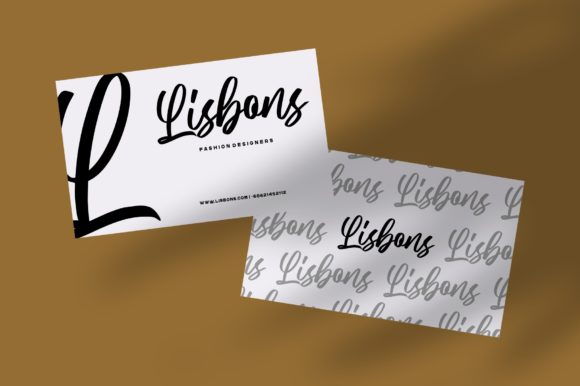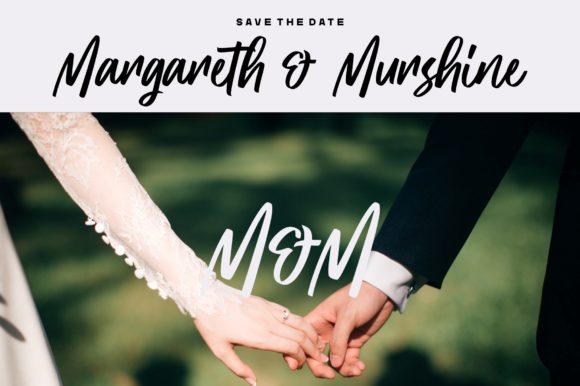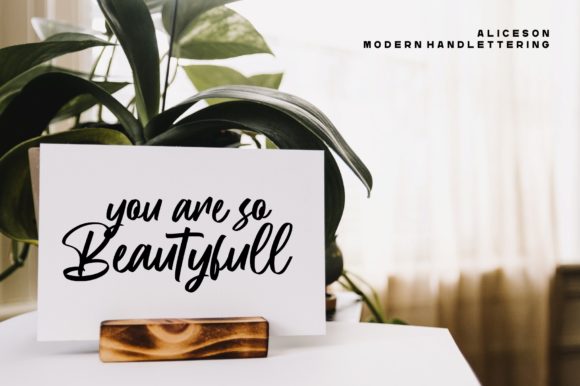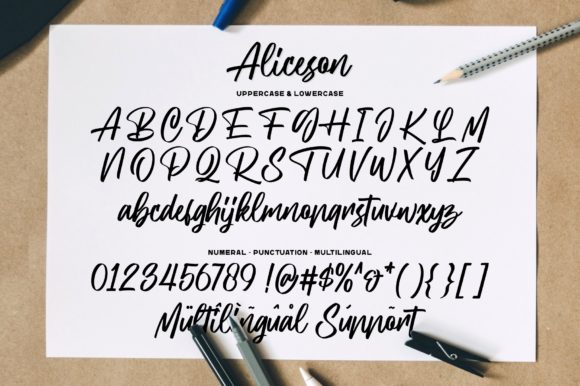
Aliceson Font: The Sweet and Versatile Handwritten Font for Your Creative Projects
Are you looking for a font that can add a touch of elegance and sweetness to your creative projects? Look no further than Aliceson Font, a beautiful cursive and handwritten font that is perfect for a wide range of applications. In this article, we’ll take a closer look at the Aliceson Font, its features, and how you can use it to create stunning wedding invitations, stationery art, social media posts, and more.
What is Aliceson Font?
Aliceson Font is a carefully crafted cursive and handwritten font that exudes a sense of sweetness and versatility. Its unique and elegant style makes it perfect for designers and crafters who want to add a personal touch to their projects. Whether you’re creating wedding invitations, stationery art, or social media posts, Aliceson Font is sure to impress.
Features of Aliceson Font
Aliceson Font comes with a range of features that make it an incredibly versatile font. Some of its key features include:
- Cursive and Handwritten Style: Aliceson Font has a beautiful cursive and handwritten style that adds a touch of elegance and sweetness to any project.
- Versatile: Aliceson Font is perfect for a wide range of applications, including wedding invitations, stationery art, social media posts, and more.
- Easily Readable: Despite its cursive style, Aliceson Font is easily readable, making it perfect for body text and other applications where readability is key.
Using Aliceson Font for Wedding Invitations
Wedding invitations are one of the most popular uses for Aliceson Font, and for good reason. The font’s elegant and cursive style makes it perfect for creating beautiful and sophisticated wedding invitations that set the tone for the big day. Here are a few tips for using Aliceson Font for wedding invitations:
- Combine with Other Fonts: Aliceson Font pairs perfectly with other fonts, such as serif or sans-serif fonts. Experiment with different combinations to find the perfect look for your wedding invitation.
- Add Floral Elements: Aliceson Font looks stunning when paired with floral elements, such as illustrations of flowers or greenery. Consider adding these elements to your wedding invitation to give it a more romantic feel.
- Use for Calligraphy: Aliceson Font is perfect for creating beautiful calligraphy on wedding invitations. Use it to add a personal touch to your invitation, such as the bride and groom’s names or a special message.
Using Aliceson Font for Stationery Art
Aliceson Font is also perfect for creating beautiful stationery art, such as greeting cards, journals, and planners. Here are a few tips for using Aliceson Font for stationery art:
- Experiment with Colors: Aliceson Font looks stunning in a range of colors, from bright and bold to soft and pastel. Experiment with different colors to find the perfect look for your stationery art.
- Add Illustrations: Aliceson Font pairs perfectly with illustrations, such as doodles or watercolor illustrations. Consider adding these elements to your stationery art to give it a more playful feel.
- Use for Quotes and Sayings: Aliceson Font is perfect for creating beautiful quotes and sayings on stationery art. Use it to add a touch of inspiration and motivation to your art.
Using Aliceson Font for Social Media Posts
Aliceson Font is also perfect for creating eye-catching social media posts, such as Instagram graphics and Facebook posts. Here are a few tips for using Aliceson Font for social media posts:
- Keep it Simple: Aliceson Font is a beautiful font, but it can be overwhelming if used with too many other elements. Keep your social media posts simple and focused on the font.
- Use for Headlines: Aliceson Font is perfect for creating beautiful headlines for social media posts. Use it to grab the attention of your audience and draw them in.
- Experiment with Animations: Aliceson Font looks stunning when used with animations, such as GIFs or boomerangs. Experiment with different animations to find the perfect look for your social media post.
| Font Name | Aliceson Font |
| Author | goodjavastudio |
Aliceson Font is a beautiful and versatile font that is perfect for a wide range of creative projects. Its elegant and cursive style makes it perfect for wedding invitations, stationery art, social media posts, and more. With its range of features and ease of use, Aliceson Font is sure to become a favorite among designers and crafters. So why wait? Fall in love with Aliceson Font today and start creating stunning projects that showcase its beauty and versatility.